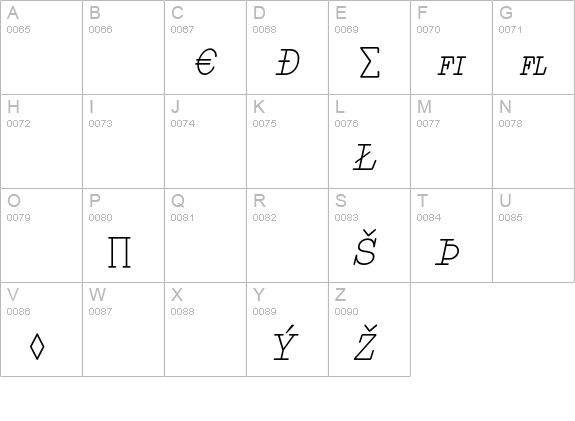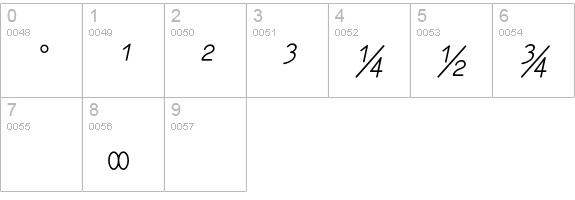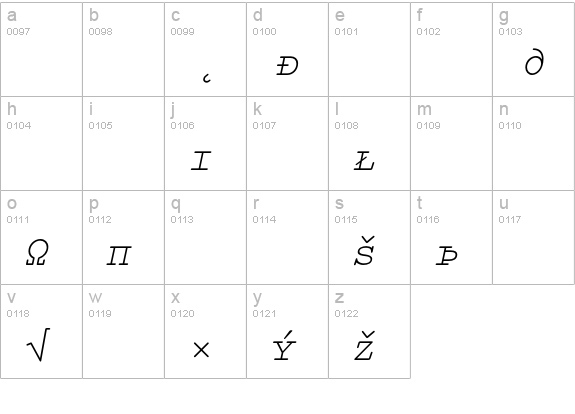
Elementa SC-Expert Italic is a distinctive, italic variant in the Elementa typeface family \xE2\x80\x94 well suited to design and typography projects.
Elementa SC-Expert Italic font is a sophisticated and elegant typeface designed to elevate your design projects to new heights. Its sleek and modern appearance makes it perfect for adding a touch of sophistication to any text. The italic style adds a sense of flair and creativity to your typography, making it stand out from the rest. This font is not only visually appealing but also highly functional, making it suitable for a wide range of design applications. Whether you are working on a branding project, a website design, or a print publication, Elementa SC-Expert Italic font is sure to make a lasting impression. The best part is that Elementa SC-Expert Italic font is available for free download at FontsMarket.com. This means you can easily access this stunning typeface without having to spend a dime. So why wait? Download Elementa SC-Expert Italic font today and take your design projects to the next level!